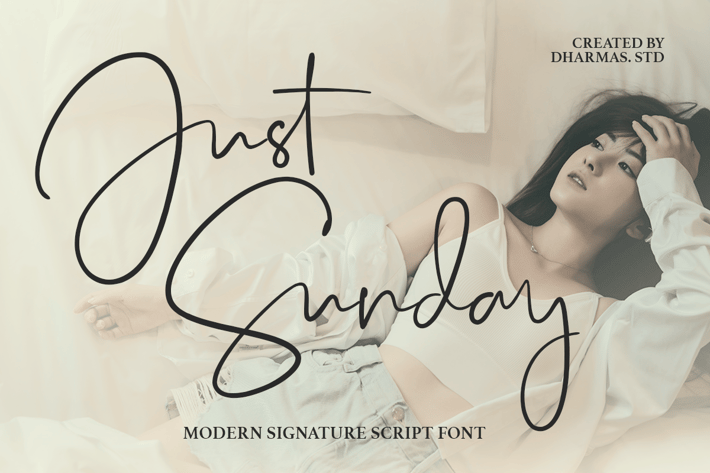
Just Sunday - Elegant Luxury Font
Introducing! New Elegant Script Font. Just Sunday!
Just Sunday is a modern feminine font, every single letter has been carefully crafted to make your text look beautiful. With a modern script style, this font will be perfect for many different projects ex: logos, photography, watermarks, quotes, blog headers, posters, weddings, branding, logos, fashion, apparel, letters, invitations, stationery, etc.
Just Sunday has beautiful ligature following :
Ju Su St af ah ak al am an as at ay ch ck cl ct dd ef eh ek el em en es et ey ff if ih ik im in il is it iy ll nn oo sh sl ss st tt uf uh uk um un ul us ut uy